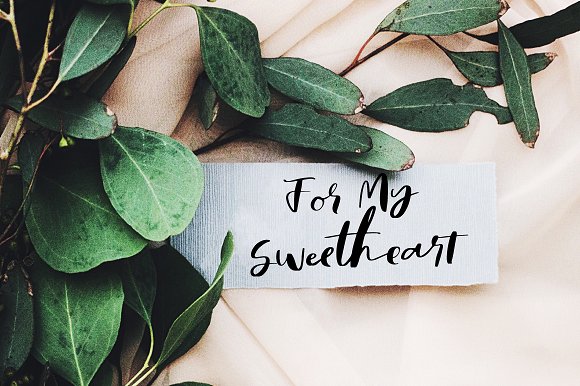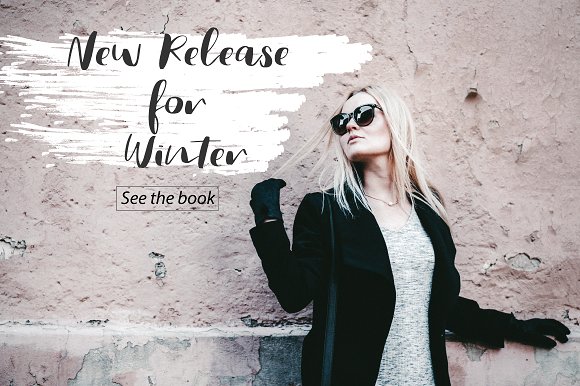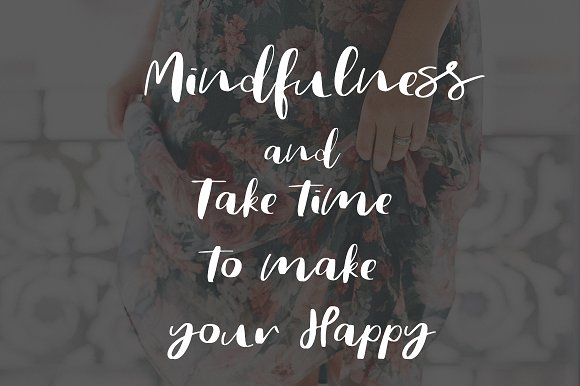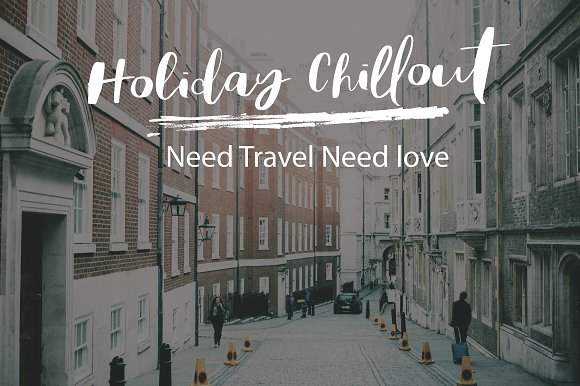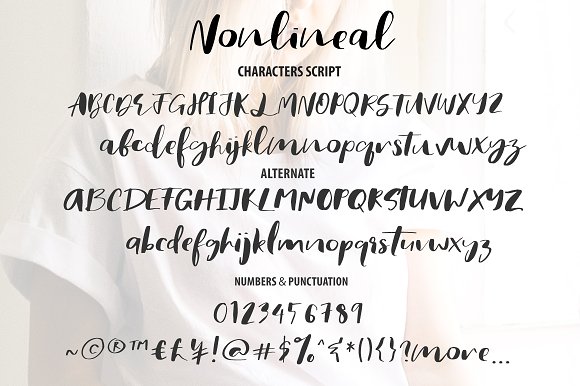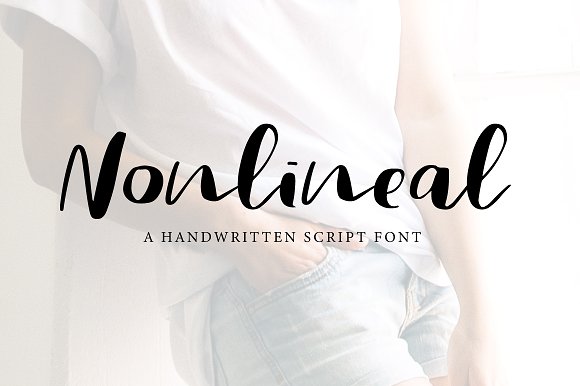
Nonlineal Font
Nonlineal is a Chic up script font.
Every single letter has been creative carefully and Perfectly for every project. This font is a little romantic script designed for making your set of invitations, quotes, blog posts, and more completely beautiful
The script has alternate upper and lowercase character set